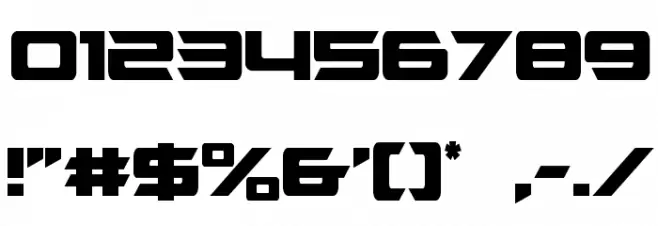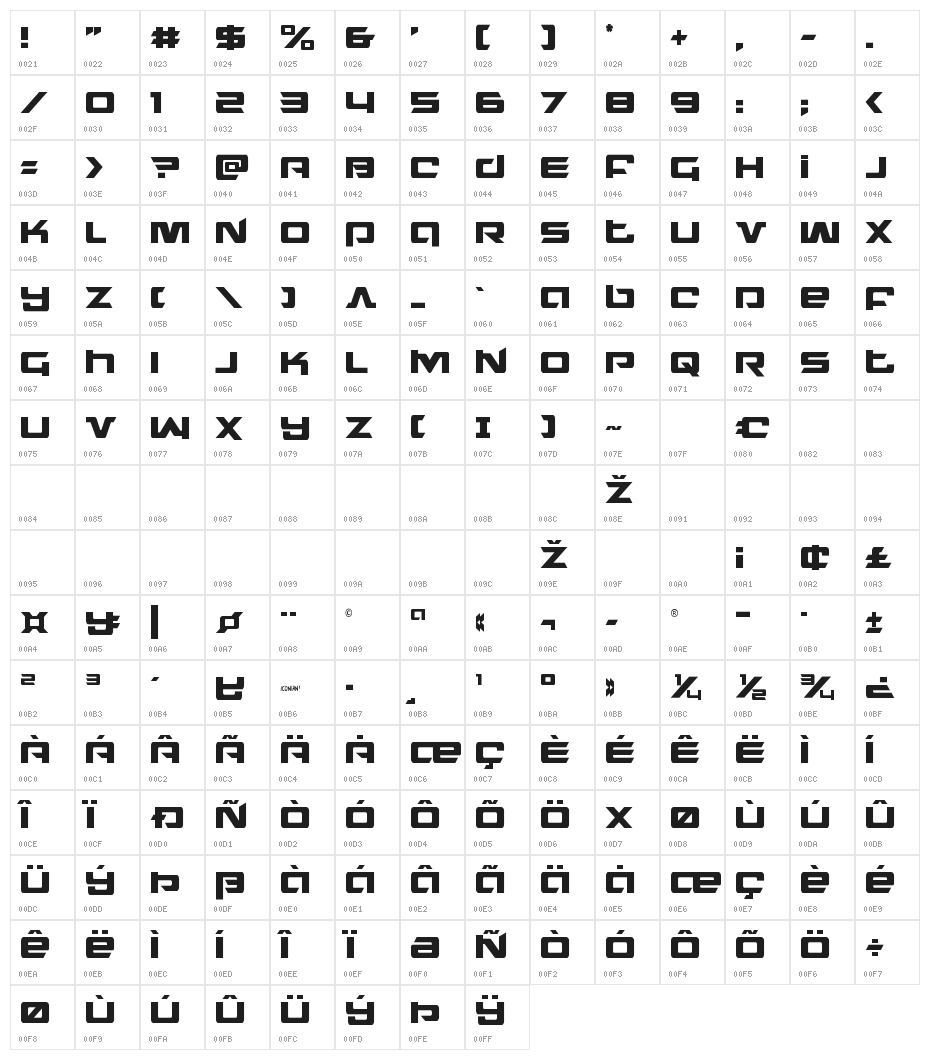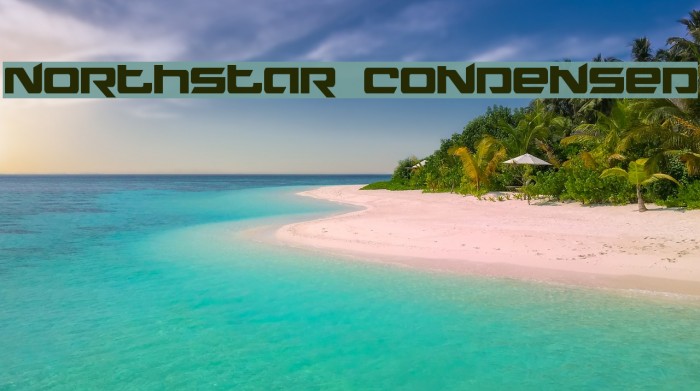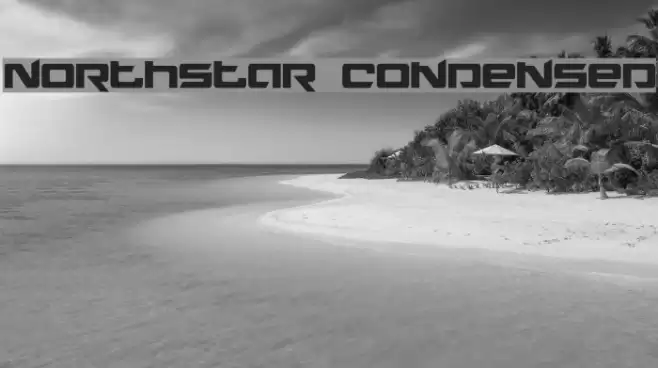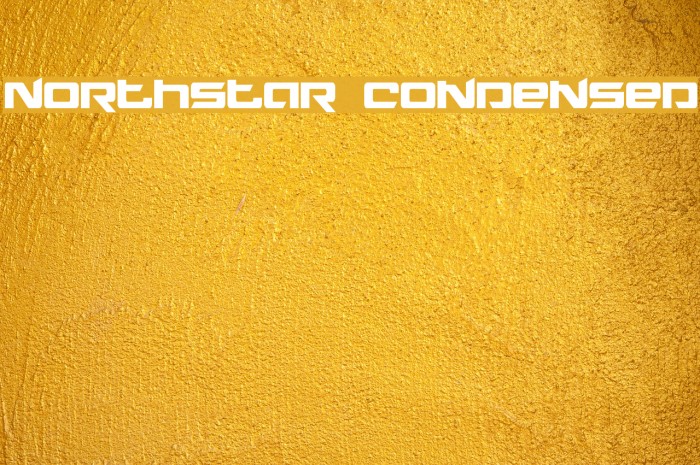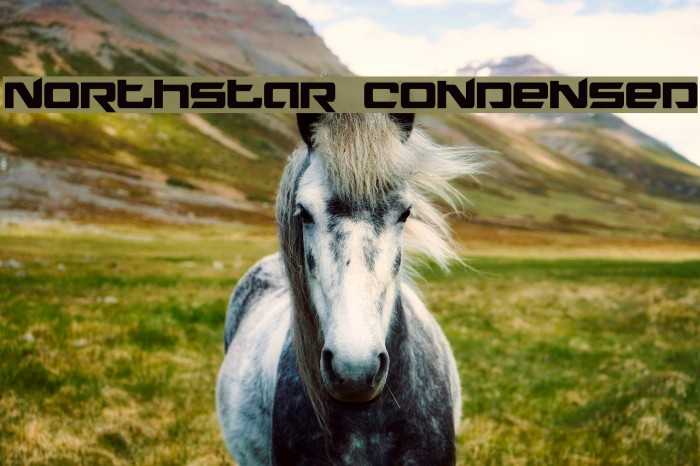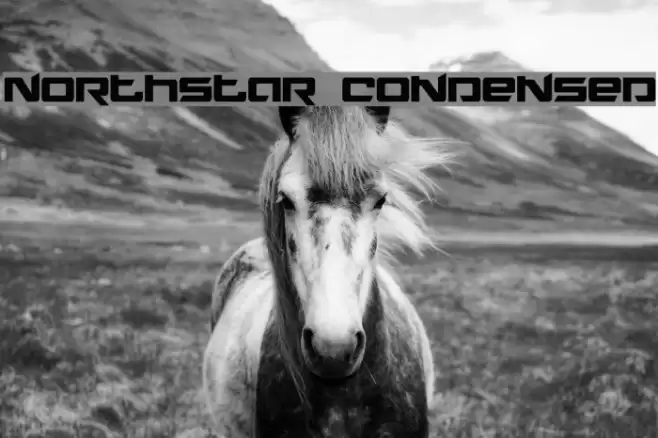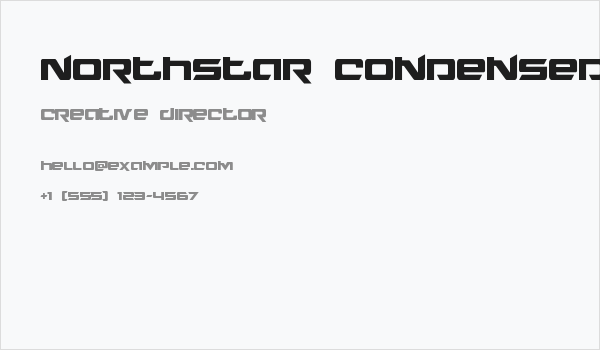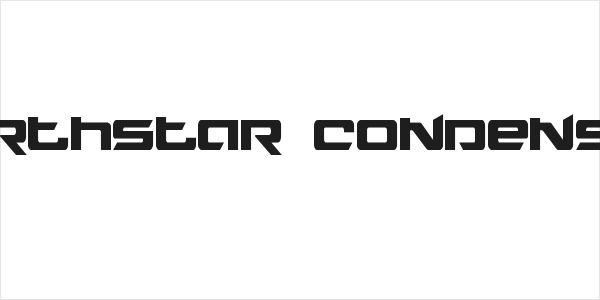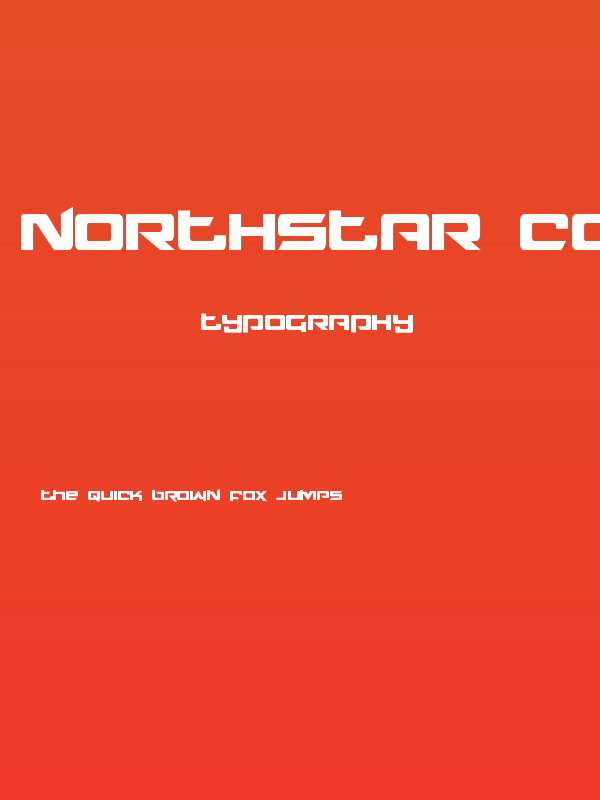
Northstar Condensed Font
Northstar Condensed Description
This font features a bold, futuristic design with sharp angles and a condensed structure. Each character is crafted with precision, offering a geometric and modern aesthetic. The uppercase and lowercase letters maintain a consistent style, enhancing readability while providing a unique visual appeal. The numbers and special characters are equally bold and distinct, making them stand out in any design. This font's condensed form allows for efficient use of space, making it ideal for projects where space is limited but impact is essential.
| Proposed Projects | Ideal for sci-fi themed projects, tech branding, posters, and modern digital interfaces. |